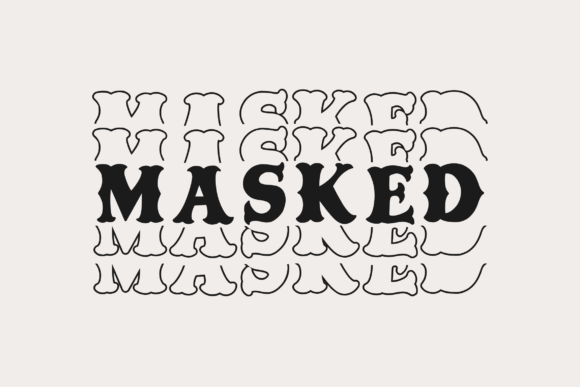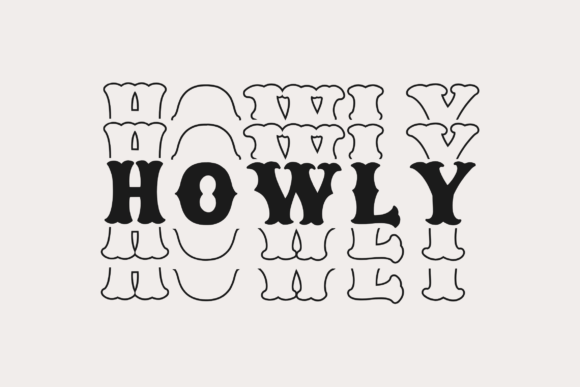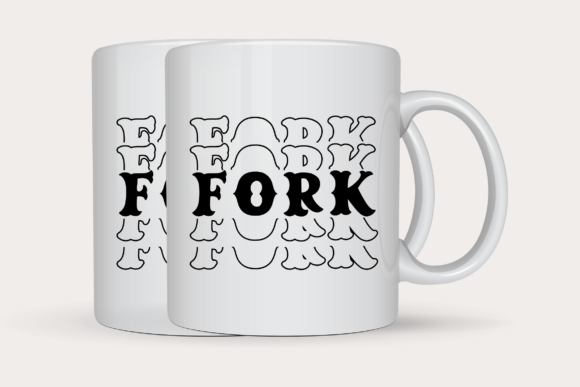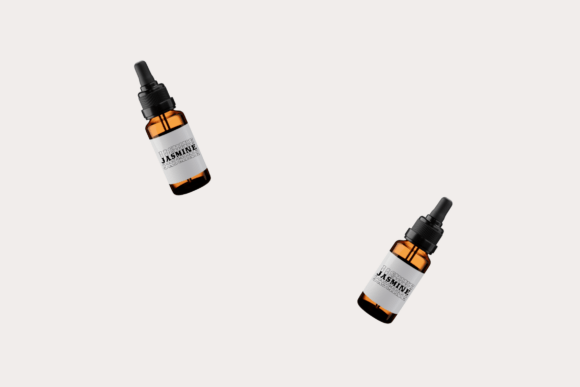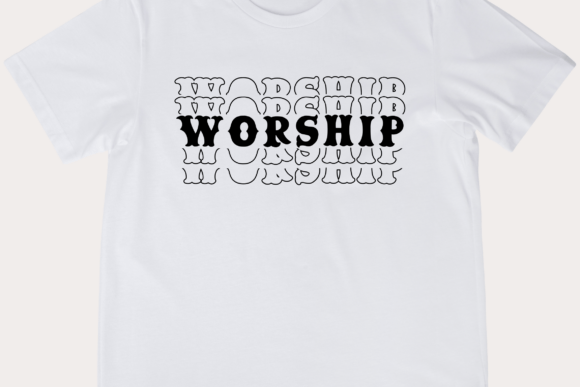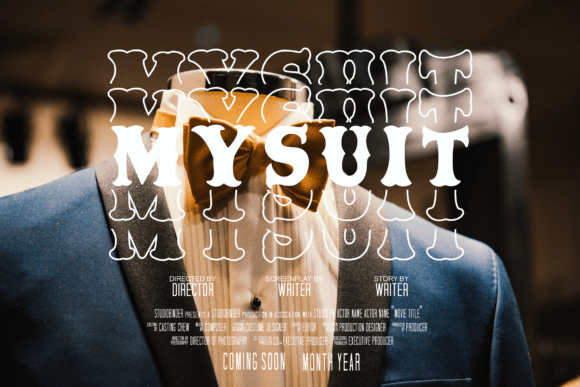
Unleash the Wild West in Your Designs
You’ve finally nailed the concept for your new logo, but something’s missing. The words just don’t have the punch you’re looking for. You need a font that screams ‘Wild West’ and makes your design stand out from the crowd.
That’s where the Caskford Stacked Font comes in – a vintage old western font that’s designed to bring instant impact to your headlines and badges. Inspired by classic saloon signs and frontier typography, this stacked font delivers bold character with a dimensional, poster-ready look. It’s perfect for logos, badges, posters, labels, signage, apparel, and rustic branding.
As a designer, you’ll love the ease of use and versatility of the Caskford Stacked Font, which works seamlessly in Canva, Photoshop, Illustrator, and most design apps. Its clean and balanced stacked structure reads clearly at both small and large sizes, making it a valuable addition to your design toolkit.
Caskford Stacked Font Key Features
- Unique Characteristics: Stacked font with a vintage, distressed look, featuring a mix of uppercase and lowercase letters, and a range of ligatures.
- Font Style: Display font, suitable for headings and titles.
- Language Support: Supports Latin, Cyrillic, and Greek scripts.
Caskford Stacked Font Review
Overall, I found “Caskford Stacked Font” to be a visually appealing and versatile font. ✨ One of its standout features is its ability to be used for both modern and vintage-inspired designs, making it a great choice for a wide range of projects.
Here are some of the font’s strengths:
- Unique, stacked design that sets it apart from more traditional fonts ✨
- Highly customizable, with a wide range of styles and weights available
- Works well in both digital and print applications
- May not be as readable at smaller font sizes due to its stacked design ⚠️
- Can be overwhelming if used too liberally in a design
- May not be suitable for projects requiring a lot of fine detail or complex typography
Overall, I think “Caskford Stacked Font” is a great choice for designers looking for a unique and eye-catching font. While it may have some limitations, its versatility and customizability make it a great addition to any design toolkit.
For optimal results, use Caskford Stacked Font in headings and titles to add a touch of elegance and sophistication to your designs.
Use Caskford Stacked Font to create custom typography for logos, branding materials, and other visual elements.
Use Caskford Stacked Font to add a touch of professionalism to your presentations and documents.
Caskford Stacked Font is ideal for use in:
- Business cards and stationery
- Presentations and documents
Tips for Getting the Most Out of Caskford Stacked Font
To get the most out of Caskford Stacked Font, use it in conjunction with other elegant and sophisticated typography, and pay attention to font size and color to ensure maximum impact.
What is the recommended font size for Caskford Stacked Font?
The recommended font size for Caskford Stacked Font varies depending on the design context. However, as a general guideline, use font sizes between 18-48 points for body text and 72-120 points for headings. This will ensure the font is legible and visually appealing in your design.